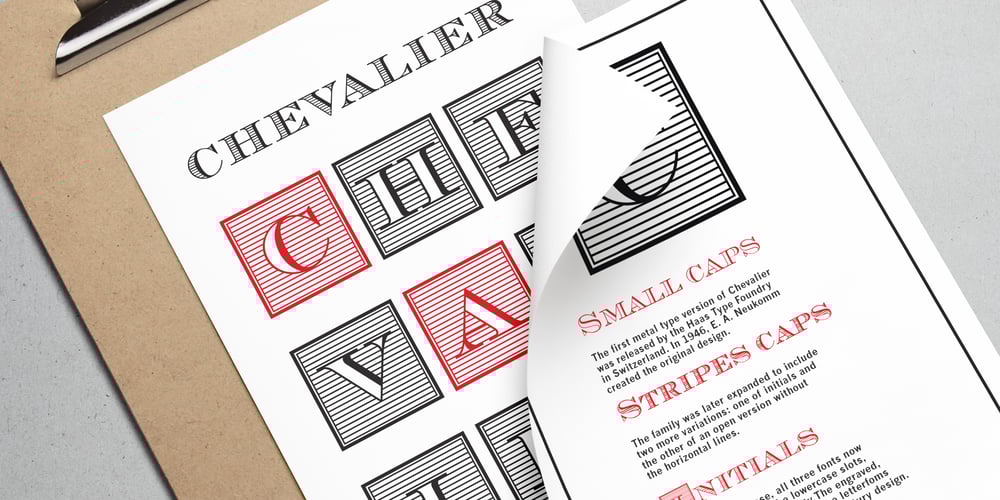
Chevalier Font Family was designed by Emil A. Neukomm and published by Linotype. Chevalier contains 3 styles and family package options. Designed by the swiss Haas’sche Schriftgiesserei, (Haas Type Foundry) Chevalier is a set of shaded capitals and figures, modern face or fat face in design. Ideal for business cards and classical letterheads.